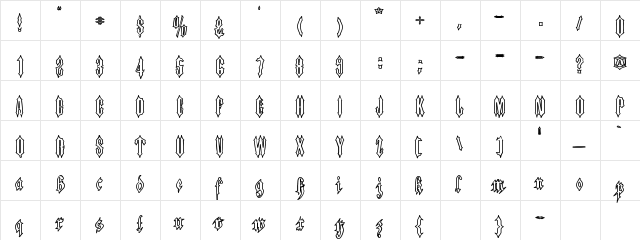
Applesauce08Hollow Regular
Design Context for Applesauce08Hollow Typeface
Applesauce08Hollow is a composed and adaptable typeface that performs quietly and consistently across a wide range of design contexts.